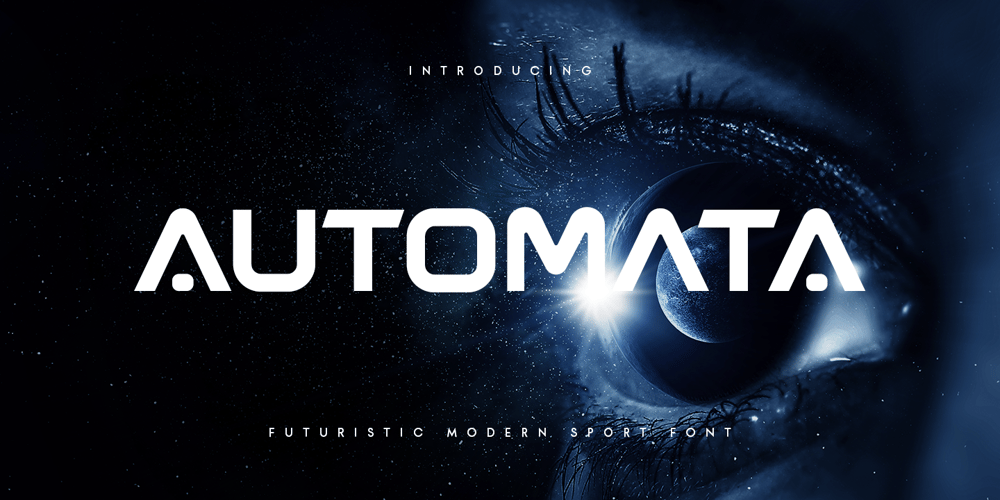
Automata Style Font Family was designed by Zamroni Hamzah and published by Sensatype Studio. Automata Style contains 1 styles and family package options. AUTOMATA is a Futuristic Modern Sport font that created special for Sci-fi, Modern and more stand out typography needs. It’s so perfect to add your style and headline overview for sport, technology, actions, and Sci-fi theme. And specially for this font, Futuristic characters prepared to get creative alternatives in Technology theme Preview as a inspirations that you can do with AUTOMATA font Ready with Uppercase and Lowercase characters Wish you enjoy our font. ๐